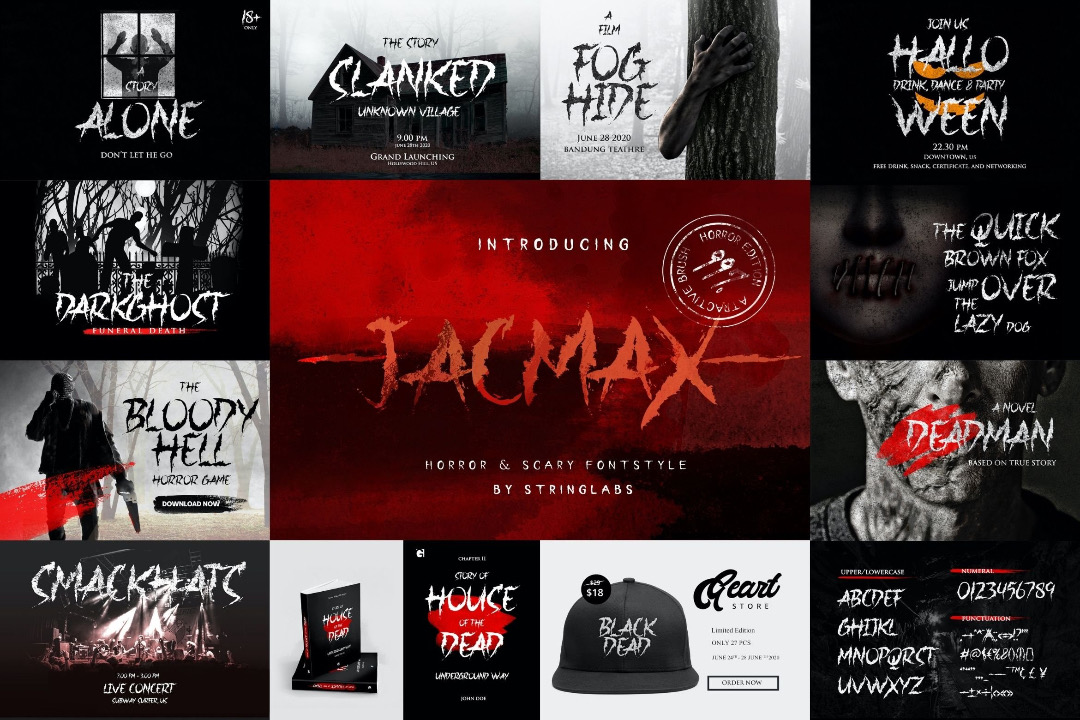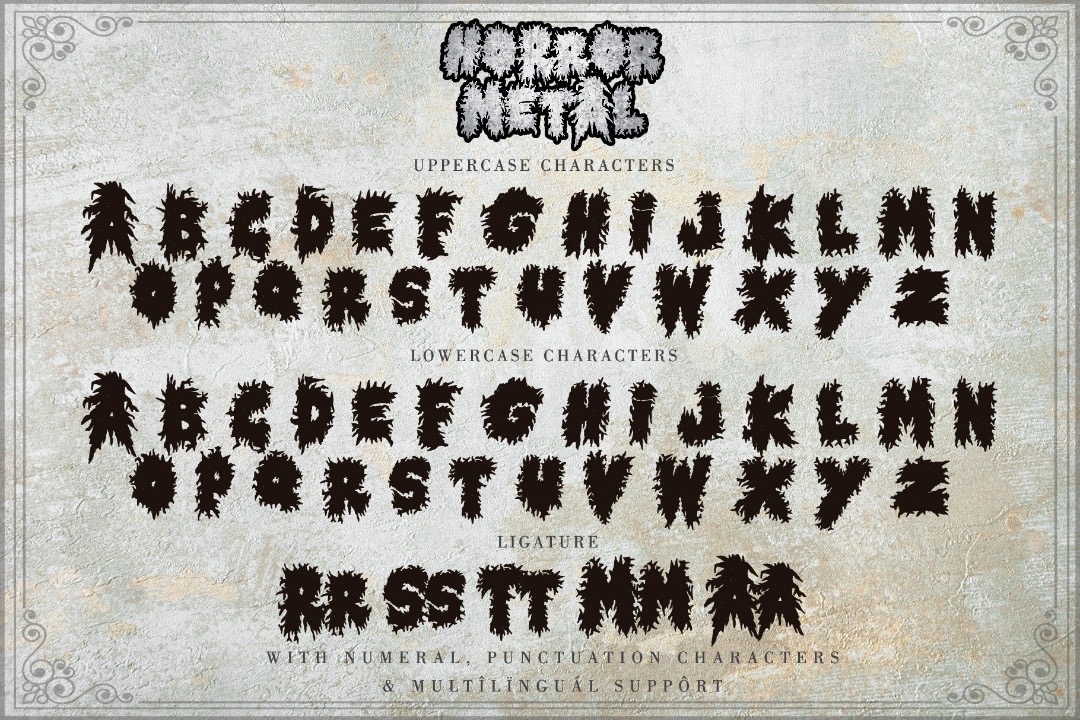
Get ready to spookify your designs as that time of year is creeping in again. We’ve summoned up a cauldron of wicked, downloadable Halloween photos, illustrations, clipart, and fonts that’ll give your projects a haunting makeover.
Whether you’re brewing up invites to a party, posters, or social media posts, these ghoulishly delightful assets have got you covered.
So, grab your broomstick (or mouse) and dive into an abyss of digital treats below.
#1 3D Cartoon-Style Halloween Vector File
#2 Phantasm 12-Set Vintage Ghost Paintings
These chilling, 1960s-inspired horror paintings are your one-stop-shop for the paranormal and nostalgic. With an otherworldly resolution of approximately 9,000 x 5,000 px, they stand tall at 16” x 30” at 300dpi for prints or an eerie 121” x 68” at 72dpi for web haunts.
#3 Halloween Ghost Dog
#4 Wednesday Addams Illustration
#5 Halloween Creepers Graphic Pack
Elevate your Halloween-themed creative projects with this extensive and lovingly crafted graphic pack of 130 assets. The files are user-friendly, featuring editable live strokes for all vector files, armed with one Adobe Illustrator, one EPS, 130 SVG, 130 PSD, and 130 high-res PNG files. As a bonus, the pack contains six EPS files of social media templates.
#6 Halloween Characters Set Of Three Vectors
#7 Spooky Night Halloween Clip Art
Create captivating logos, invitation cards, indulge in some spooktastic scrapbooking, design wedding and birthday cards, infuse a dose of Halloween into your home decor, and even deck out your holiday gifts and party decorations with the Spooky Night clip art. With 12 hauntingly beautiful text-adorned cards, 12 captivating compositions, eight digital papers, eight seamless patterns, 11 spooky ghosts (with costumes!), 26 otherworldly elements, and 36 eerie decor elements, the possibilities are as endless as a ghost’s wanderings on Halloween night.
#8 Halloween Bottle & Potion Labels
#9 Vintage Collection of Halloween Characters & Decorations
#10 HORRORLAND Font
This bloody cool, hand-drawn font brings the essence of horror to your creative projects, with three symbols including a skull, a heart, and a bat to craft compositions that are both eerie and captivating.
#11 Horror Metal Font
This razor-sharp, brush-style font that’s “not for the faint-hearted,” fully accessible in popular design software like Adobe Illustrator, Adobe Photoshop, Adobe InDesign, CorelDraw, and even Microsoft Word, making it a versatile yet edgy choice for your graphic needs.
#12 Sweet Halloween Font
Sweet Halloween brings you a delightful collection of graphic elements, including not one, not two, but three alphabets crafted from candy-shaped letters and numbers. But the sugary fun doesn’t stop there—this set also features an array of mouth-watering sweets and hard candies, from chocolate truffles to caramels, lollipops to toffees, and everything in between.
#13 Horror Font Bundle
This chilling collection boasts eight high-quality fonts that delve into the realms of horror, the macabre, and the gothic. Each font brings its own unique style and variations to the table, making it an ideal companion for a range of sinister-looking projects, from movie posters that send shivers down your spine to logos that ooze darkness and lettering for horror novels.